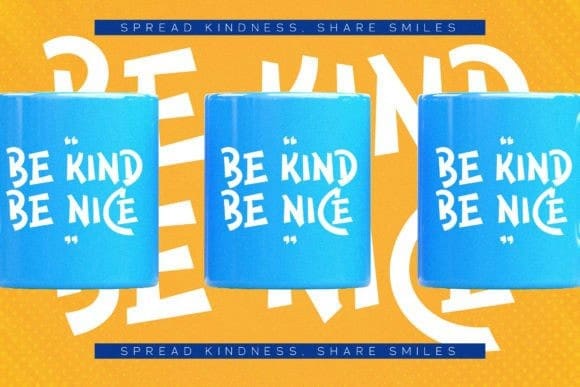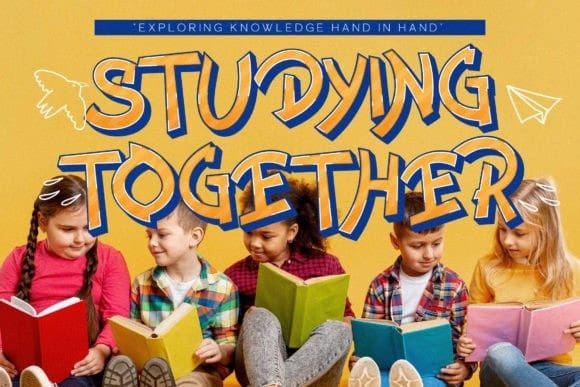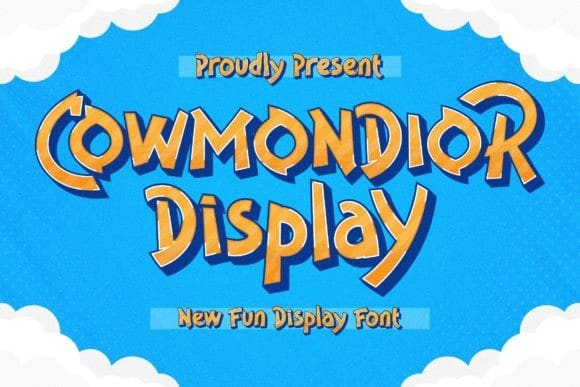
Cowmondior Font
Cowmondior Font is a sweet and friendly display font. Its natural and unique style makes it incredibly fitting to a large pool of designs. The only limit is your imagination!